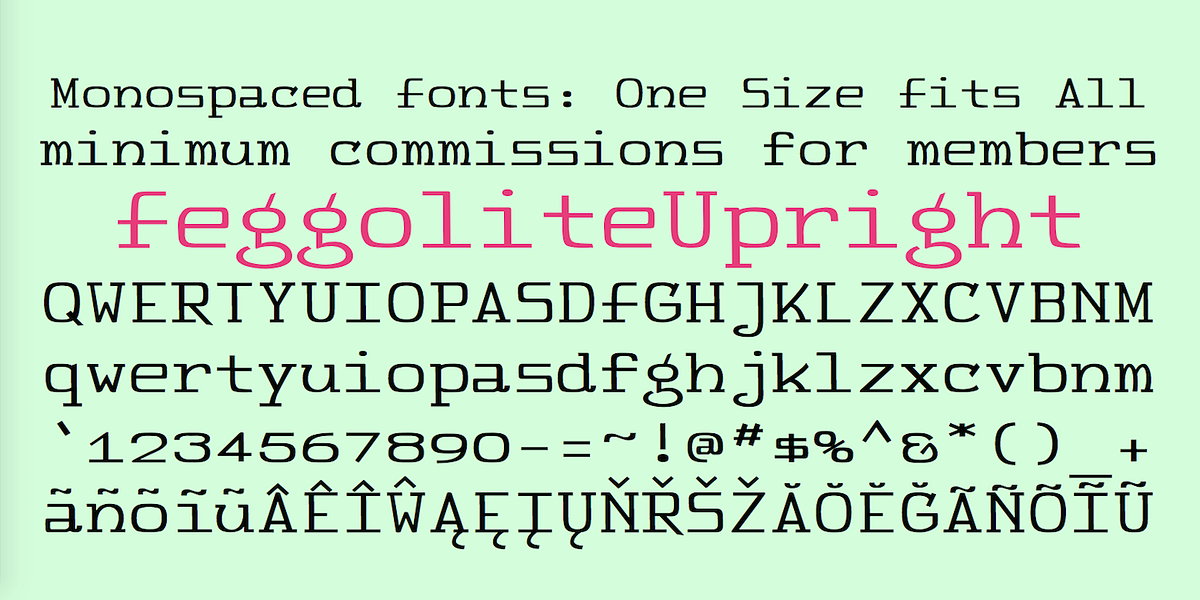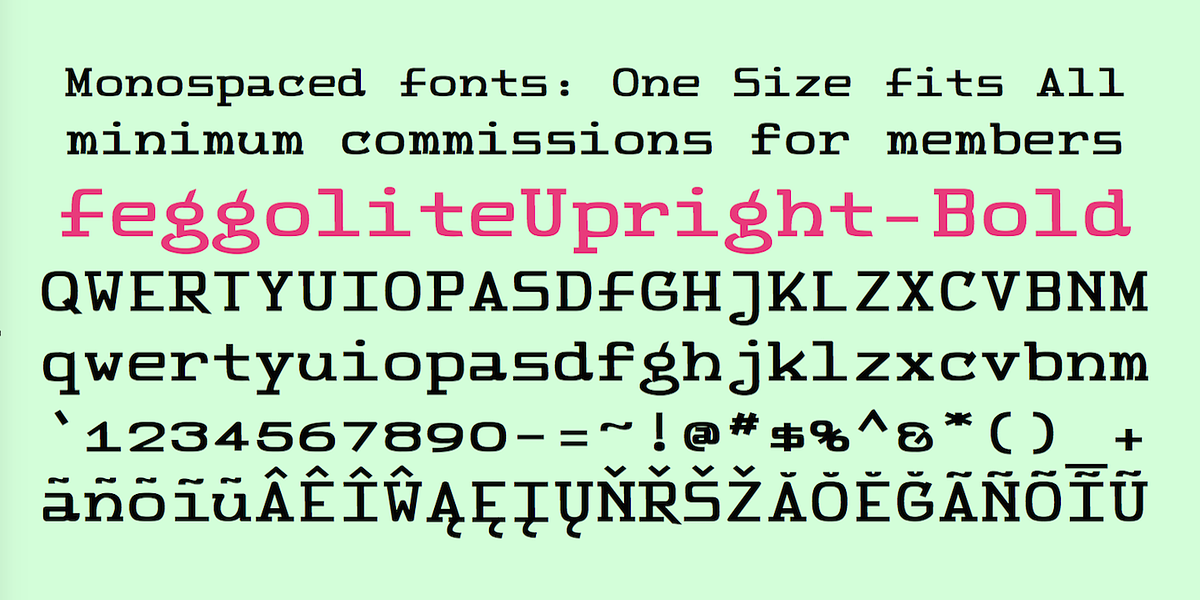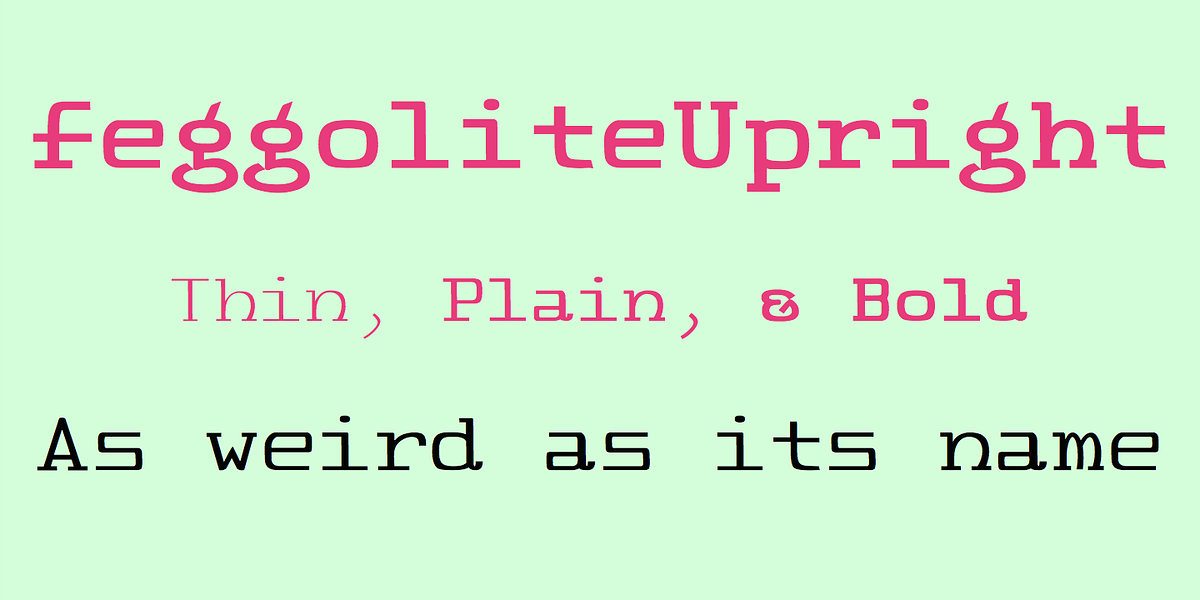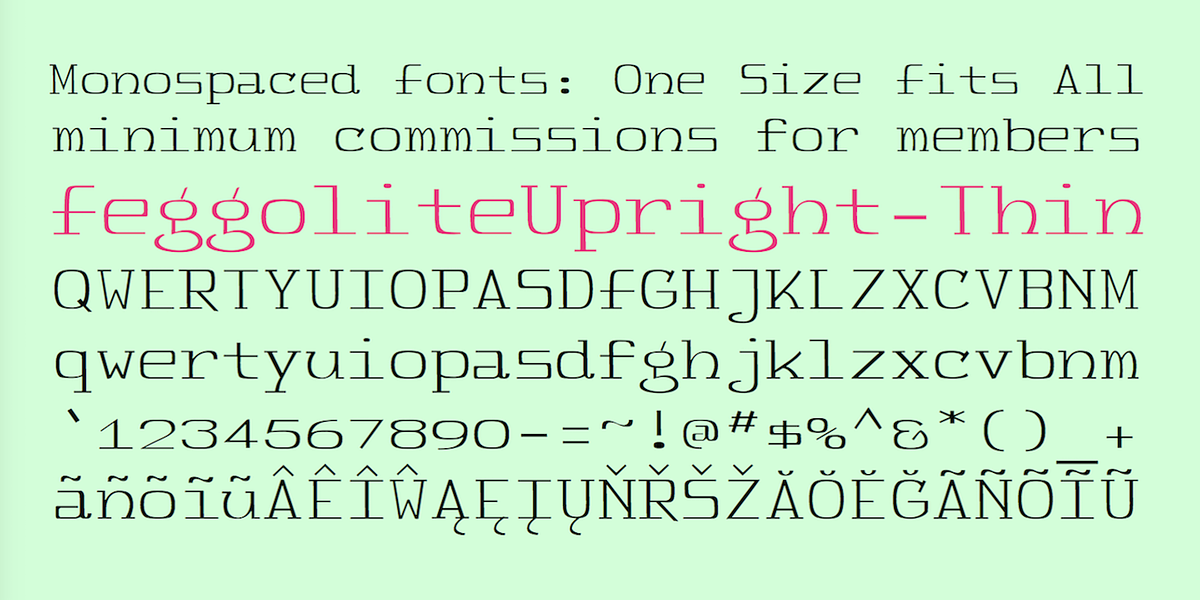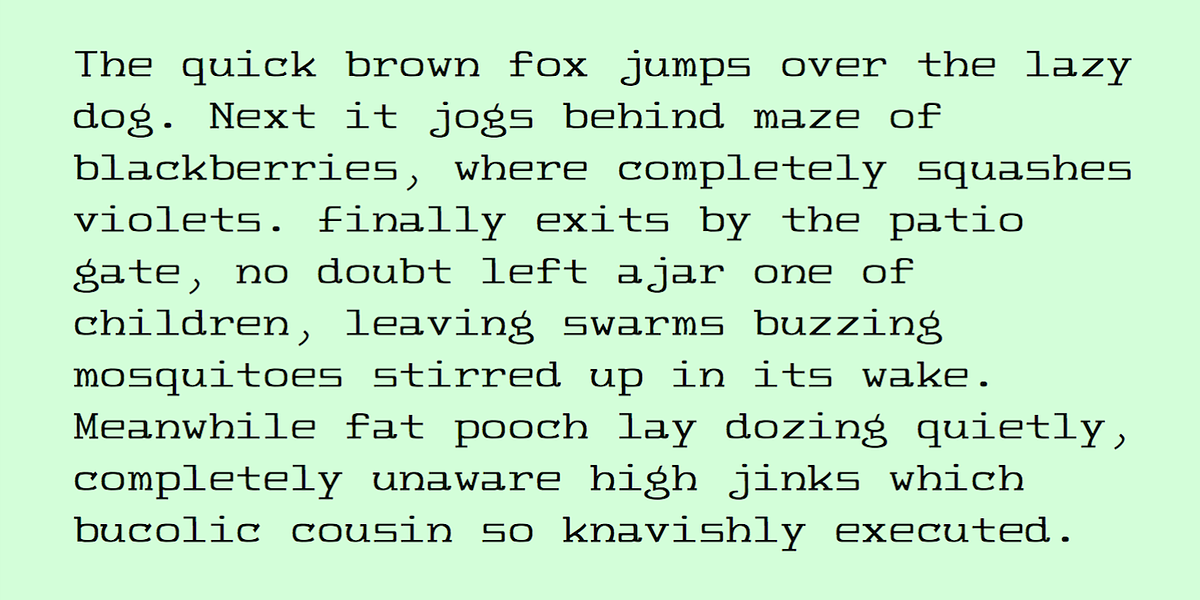
FeggoliteUpright
FeggoliteUpright is a monospaced slab serif typeface designed to be used for programming and display purposes. It is a rework of the Feggolite font, aiming to make it more usable.